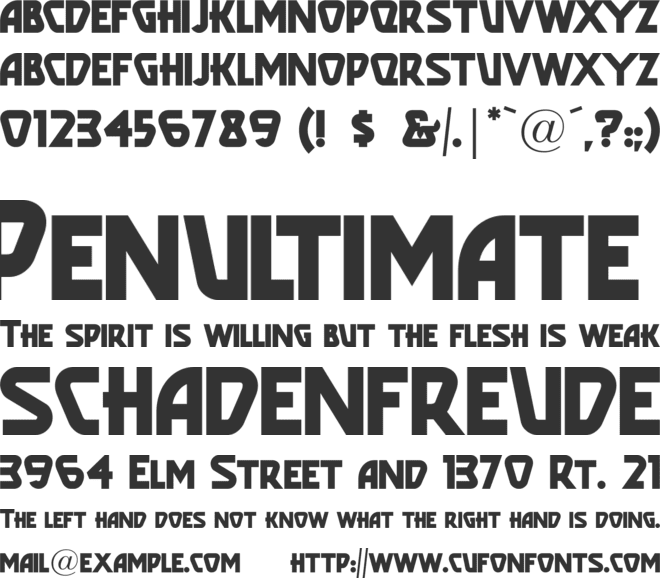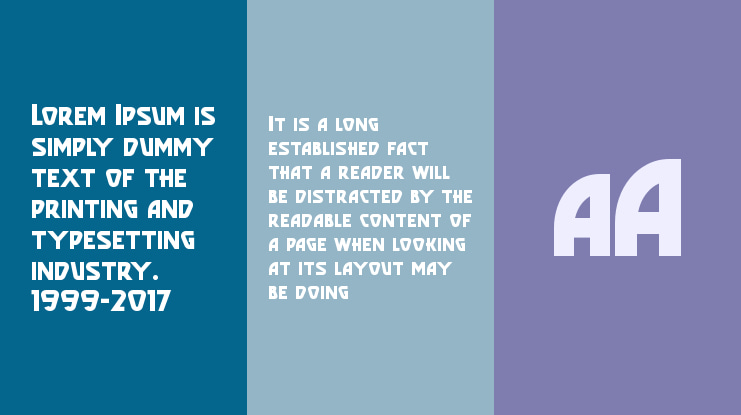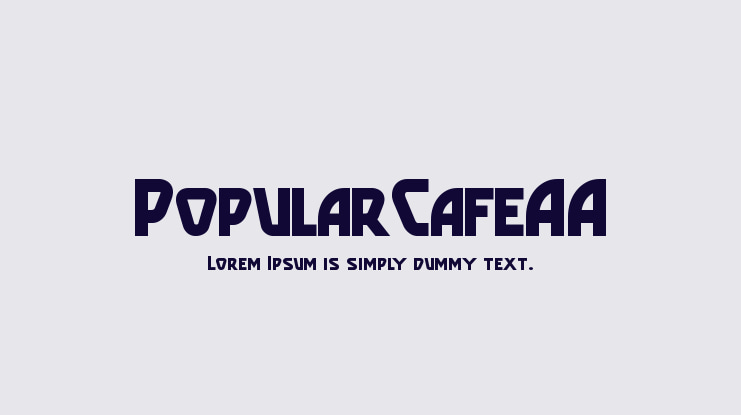
PopularCafeAA Font
Here’s an exotic font, inspired by posters designed in 1927 by an artist known simply as Rae for a popular café in London’s Piccadilly Circus, known as — can you guess? — The Popular Café. One poster advises that it will cost you nothing to dance the Blues away at their establishment — visitors taking dinner, supper or tea may dance at no extra charge. Those were the good old days!